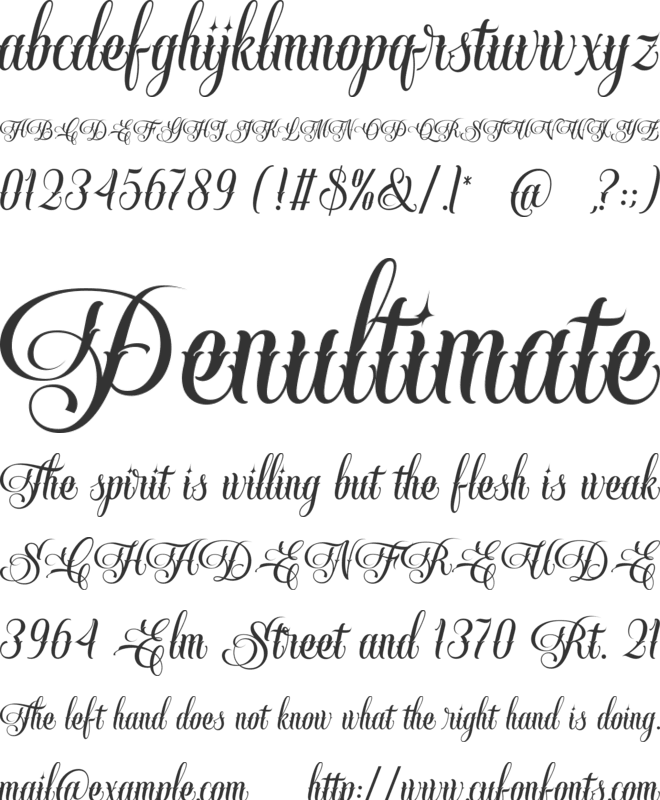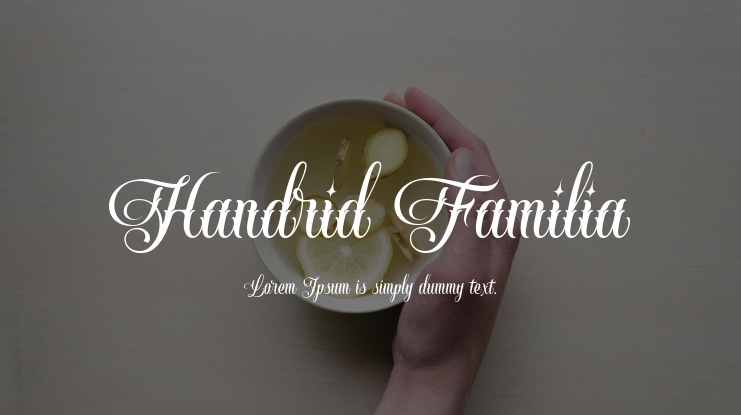
Handrid Familia Font
Handrid Familia Typeface The Handrid Familia Typeface embodies the essence of a traditional Mexican family script, infused with the bold and intricate swashes typical of Mexican gangster art and tattoos. Its design reflects a rich cultural heritage, blending elegance with a rugged, street-smart aesthetic.